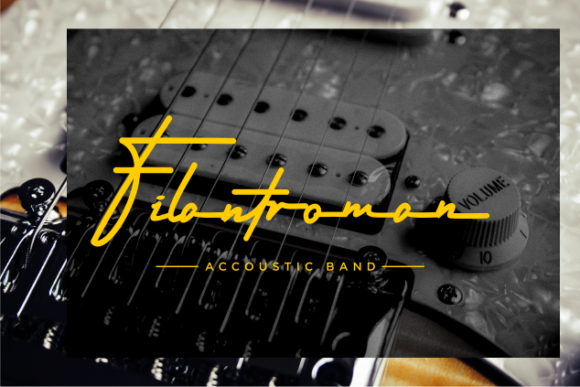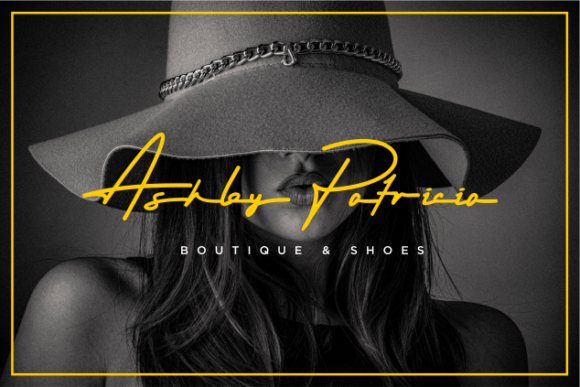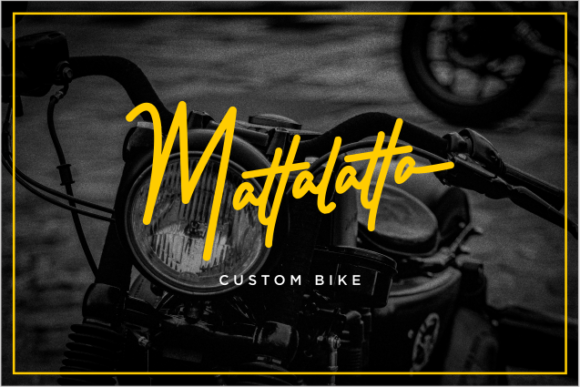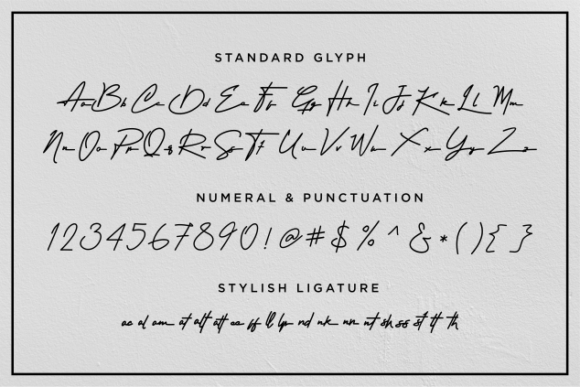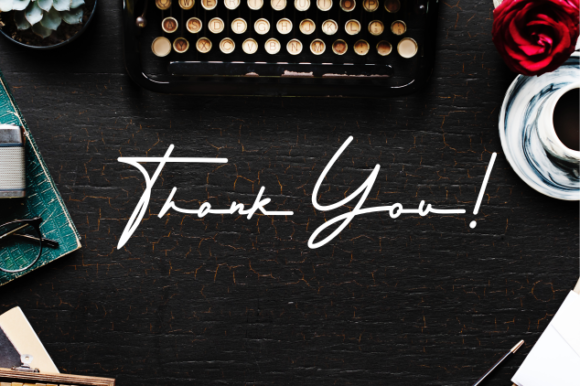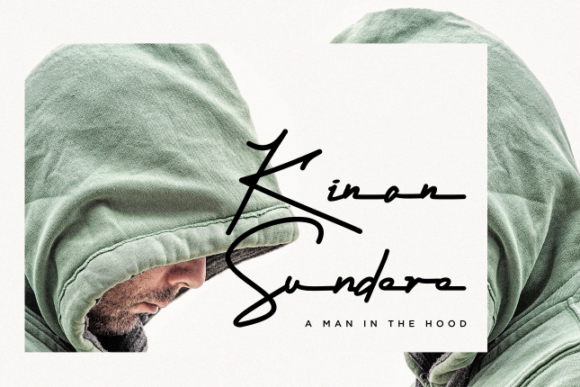
Introducing Attention Script Font: Elevate Your Designs with Elegance
Are you tired of using the same old fonts in your design projects? Look no further! Attention Script Font is here to revolutionize the way you add a touch of elegance to your creations. This modern and fresh script font boasts a beautiful handwritten style that’s sure to capture the attention of your audience.
The Power of Handwritten Fonts
Handwritten fonts have a unique ability to add a personal touch to any design project. They evoke emotions, convey personality, and create a sense of connection with the viewer. In today’s digital age, where uniformity and consistency are often prioritized, a well-crafted handwritten font can be a breath of fresh air.
What Makes Attention Script Font Special?
Attention Script Font is not just another script font. Its modern and fresh design makes it perfect for a wide range of applications, from branding and advertising to packaging and digital media. The font’s handwritten style is elegant, yet approachable, making it ideal for designers who want to add a touch of sophistication to their work.
Key Features of Attention Script Font
- Modern and Fresh Design: Attention Script Font features a unique and contemporary design that’s sure to make your designs stand out.
- Handwritten Style: The font’s handwritten style adds a personal touch to your designs, making them more relatable and engaging.
- Elegant and Sophisticated: Attention Script Font is perfect for designers who want to add a touch of elegance and sophistication to their work.
- Versatile: The font is suitable for a wide range of applications, including branding, advertising, packaging, and digital media.
How to Use Attention Script Font in Your Designs
Using Attention Script Font in your designs is easy. Here are a few tips to get you started:
- Pair it with a Sans-Serif Font: Pair Attention Script Font with a clean sans-serif font to create a beautiful contrast.
- Use it as a Title Font: Use Attention Script Font as a title font to add a touch of elegance to your designs.
Why Designers and Crafters Love Attention Script Font
Designers and crafters love Attention Script Font for its versatility and elegance. Here are a few reasons why:
- Easy to Read: Attention Script Font is easy to read, making it perfect for body text and captions.
- Highly Versatile: The font is suitable for a wide range of applications, from digital media to print materials.
- Unique and Creative: Attention Script Font is a unique and creative font that’s sure to make your designs stand out.
In conclusion, Attention Script Font is a beautiful and elegant font that’s perfect for designers and crafters who want to add a touch of sophistication to their work. Its modern and fresh design, combined with its handwritten style, makes it a versatile font that’s suitable for a wide range of applications. Try Attention Script Font today and elevate your designs to the next level!